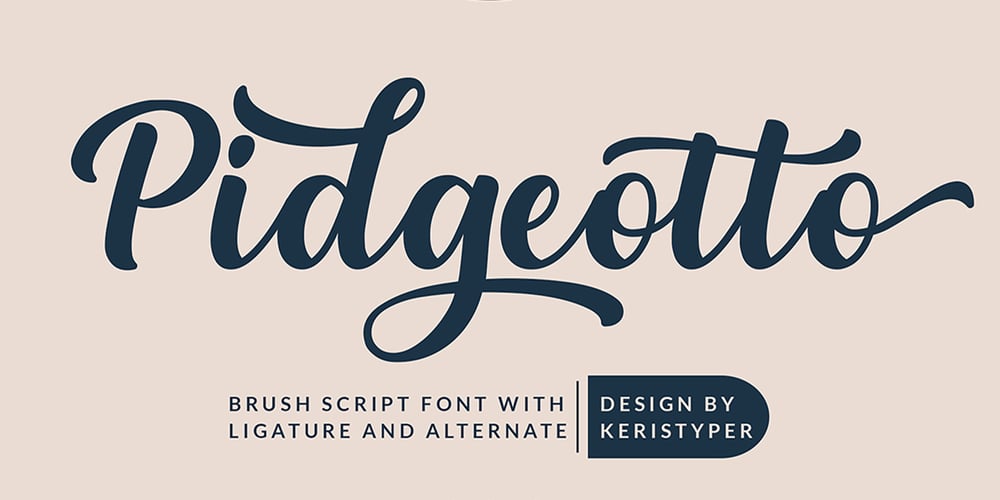
Pidgeotto
Pidgeotto font
Pidgeotto Font Family was designed by Tezar Tantular and published by Keristyper Studio. Pidgeotto contains 1 styles and family package options. Pidgeotto is a script font with a nice, smooth flow. The basic letters are simple but modified with stylistics to make them look more attractive, there are many alternatives to make it happen. Great for logos, titles, t-shirts, packages, and anywhere else you need this kind of lined, legible script font.Pidgeotto Font multilingual support: Afrikaans, Albanian, Catalan, Danish, Dutch, English, Estonian, French, Finnish, German, Icelandic, Indonesian, Italian, Malay, Norwegian, Portuguese, Spanish, Swedish, Zulu, and many more.What’s Included : OTF/ TTF/ WOFF Web Fonts Standard & Multilingual glyphs Ligature Works on PC & Mac Simple installations Accessible in Adobe Illustrator, Adobe Photoshop, Adobe InDesign, and even work on Microsoft Word. Hope you enjoy our font!